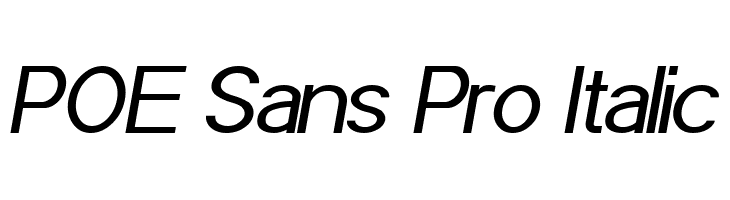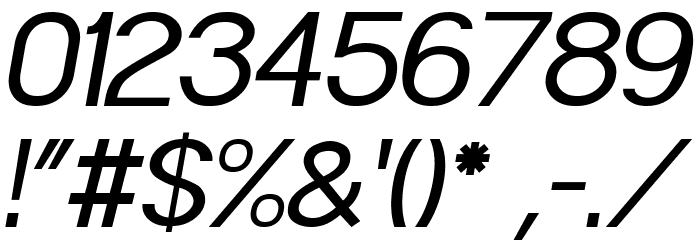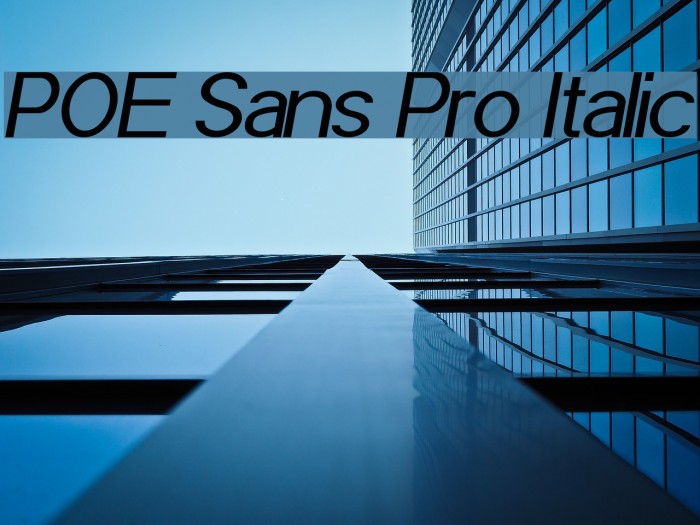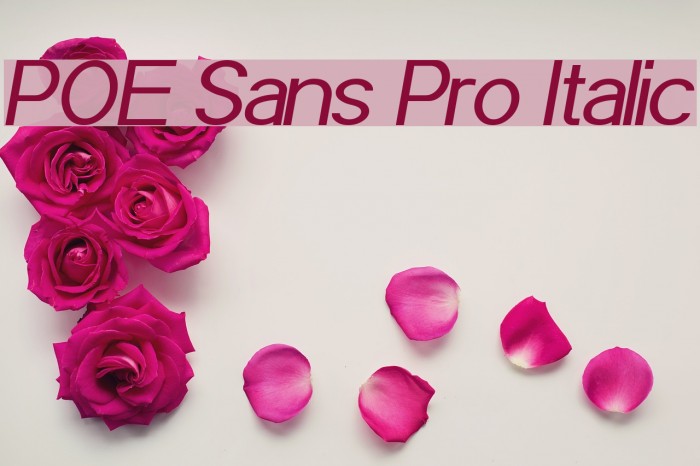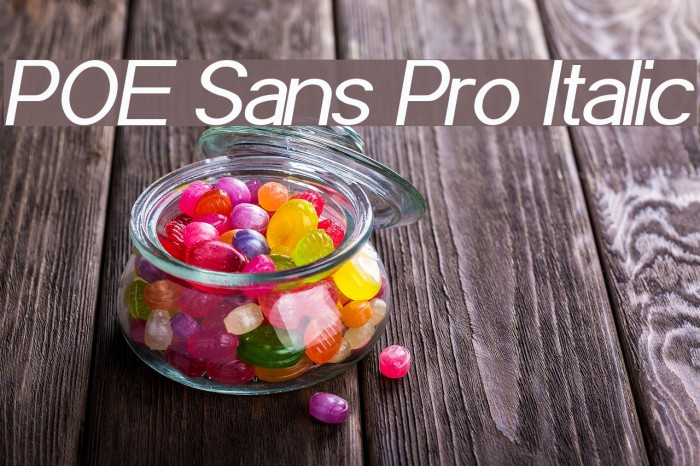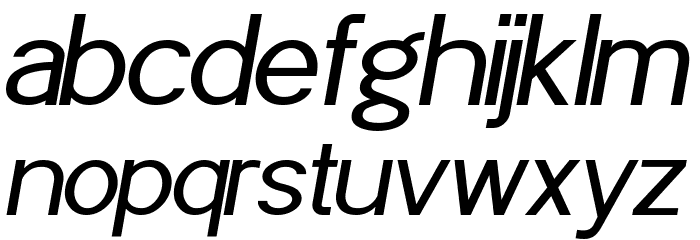
POE Sans Pro Italic Font
POE Sans Pro Italic Description
This font features a sleek and modern sans-serif design with a distinct italic slant, giving it a dynamic and forward-leaning appearance. The characters are clean and well-defined, with smooth curves and a consistent stroke width that maintains readability across various sizes. The uppercase and lowercase letters are well-proportioned, and the numerals are clear and legible. Special characters are included, maintaining the same stylistic consistency. The overall look is professional and contemporary, making it suitable for a wide range of applications.
A modern, italic sans-serif font with a sleek and dynamic style from Uncategorized fonts.
- Proposed Projects: Ideal for branding, advertising, digital content, and editorial design where a modern and professional look is desired.